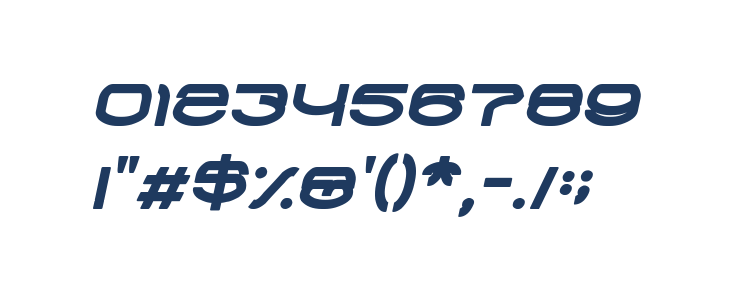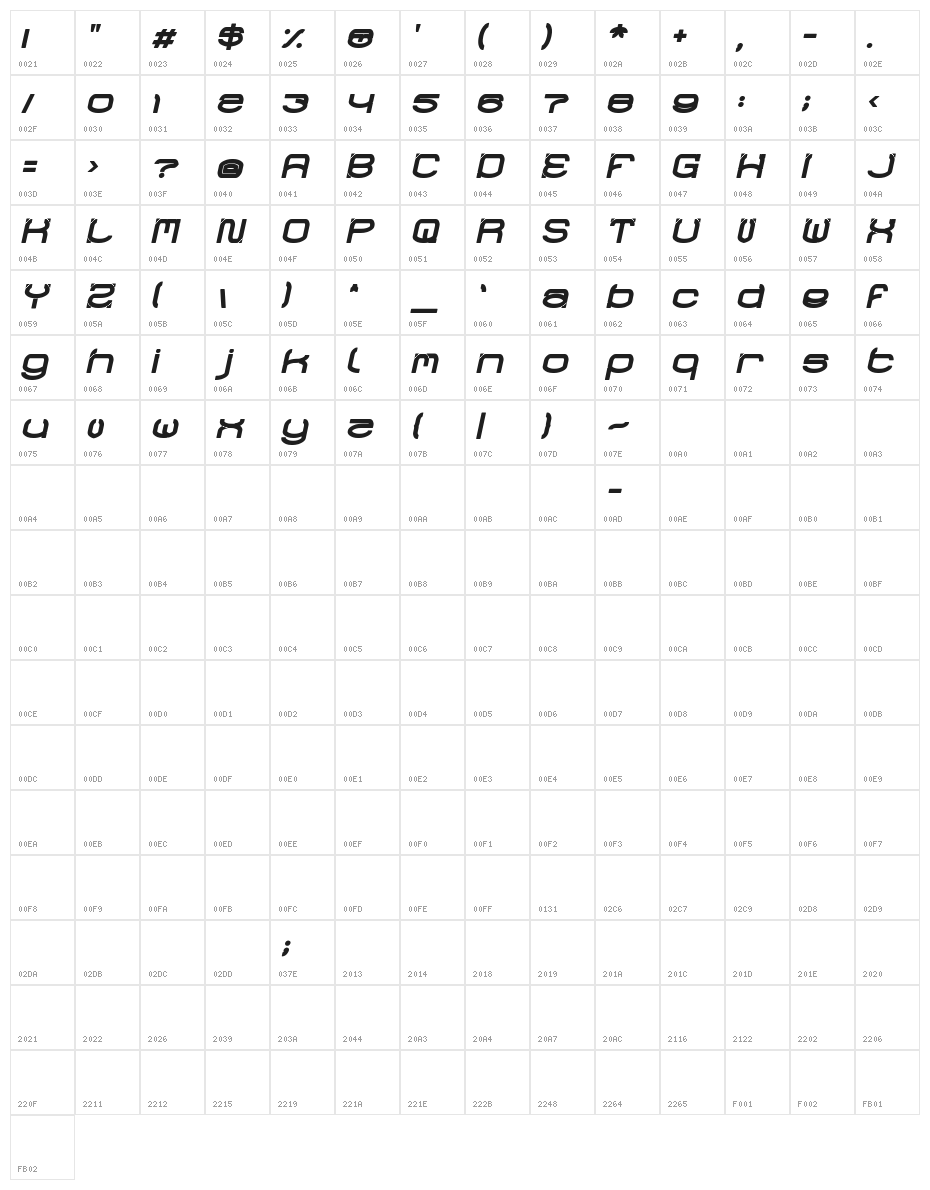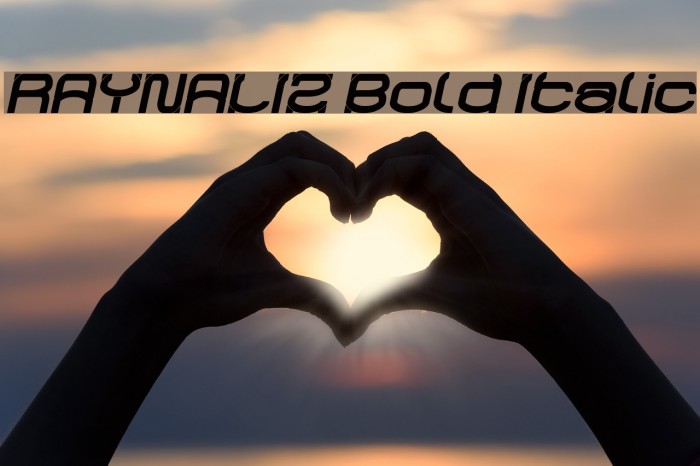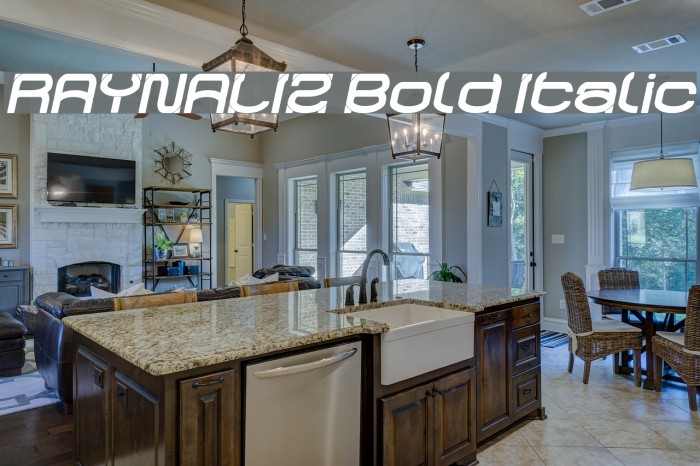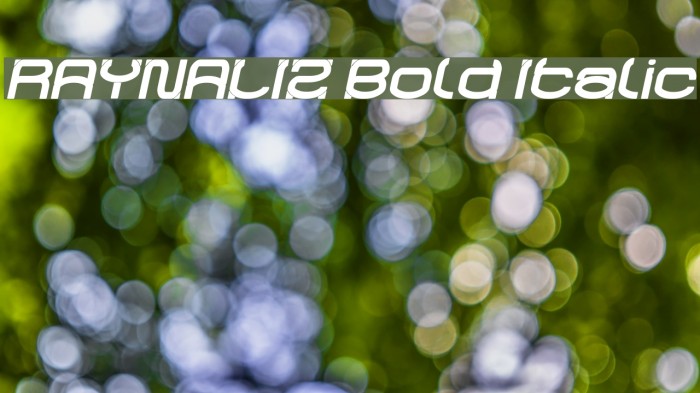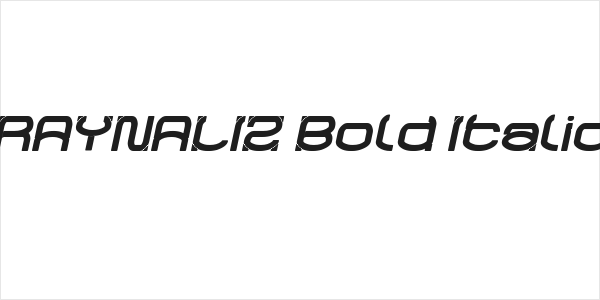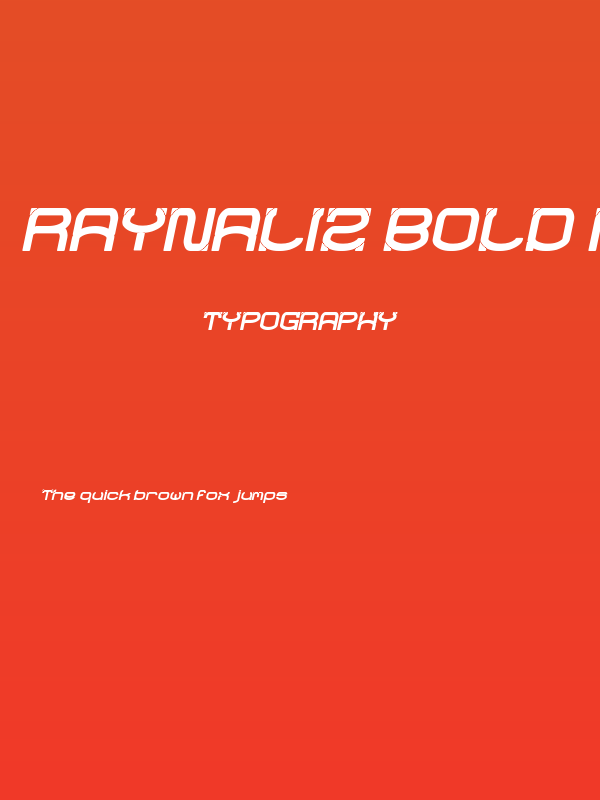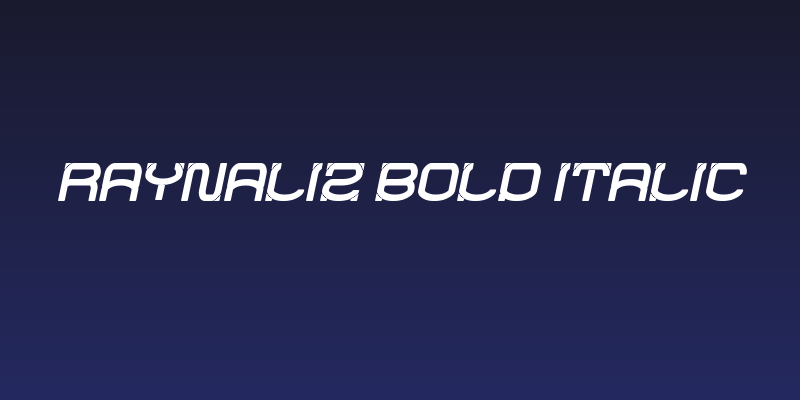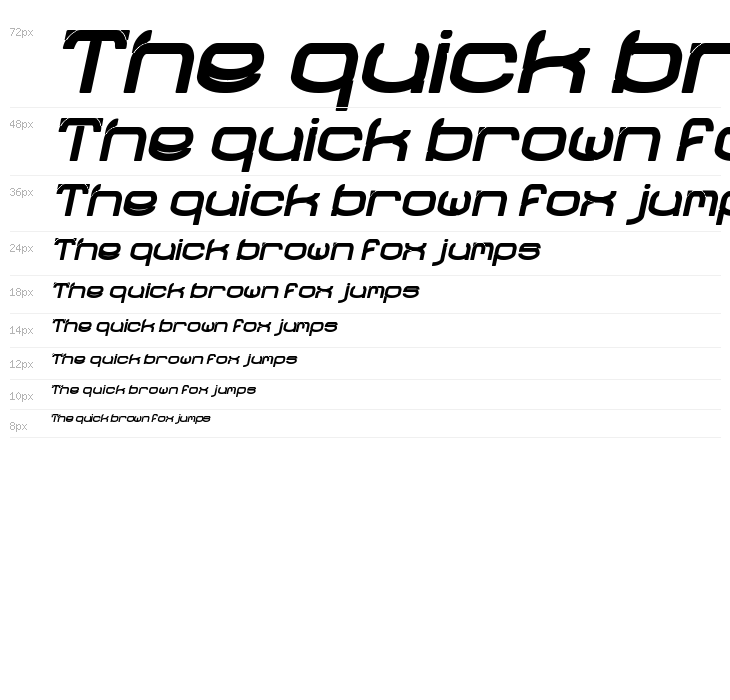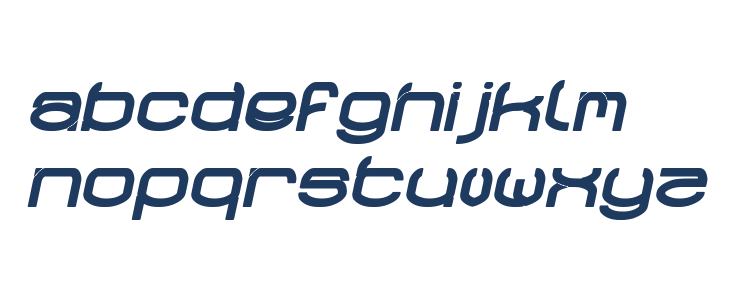
RAYNALIZ Bold Italic Font
RAYNALIZ Bold Italic Description
This font presents a bold and italicized style with a modern and dynamic appearance. The characters exhibit a forward-leaning slant, enhancing the sense of motion and energy. The strokes are thick and consistent, providing a strong visual impact. The uppercase and lowercase letters maintain a cohesive look, while the numbers and special characters are designed to match the overall aesthetic. The font's design is sleek and contemporary, making it suitable for projects that require a bold statement.
| Proposed Projects | Ideal for sports branding, dynamic advertising, modern posters, and tech-related designs. |